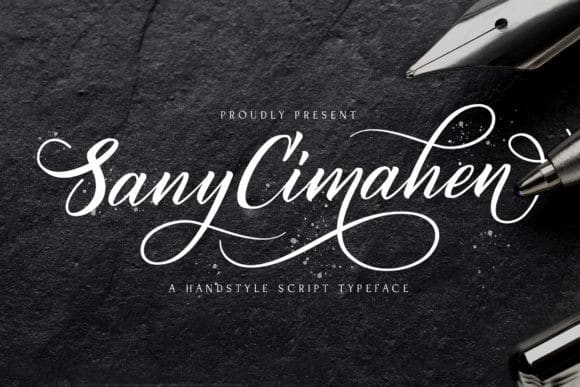
Sany Cimahen Calligraphy Font
Sany Cimahen Calligraphy Font is a display script font. This font is especially perfect for crafters. It’s designed and shared by StringLabs. This typeface is a flowing handwritten font, described by an elegant touch, perfect for your favorite projects. Fall in love with its incredibly distinct and timeless style and use it to create spectacular designs!